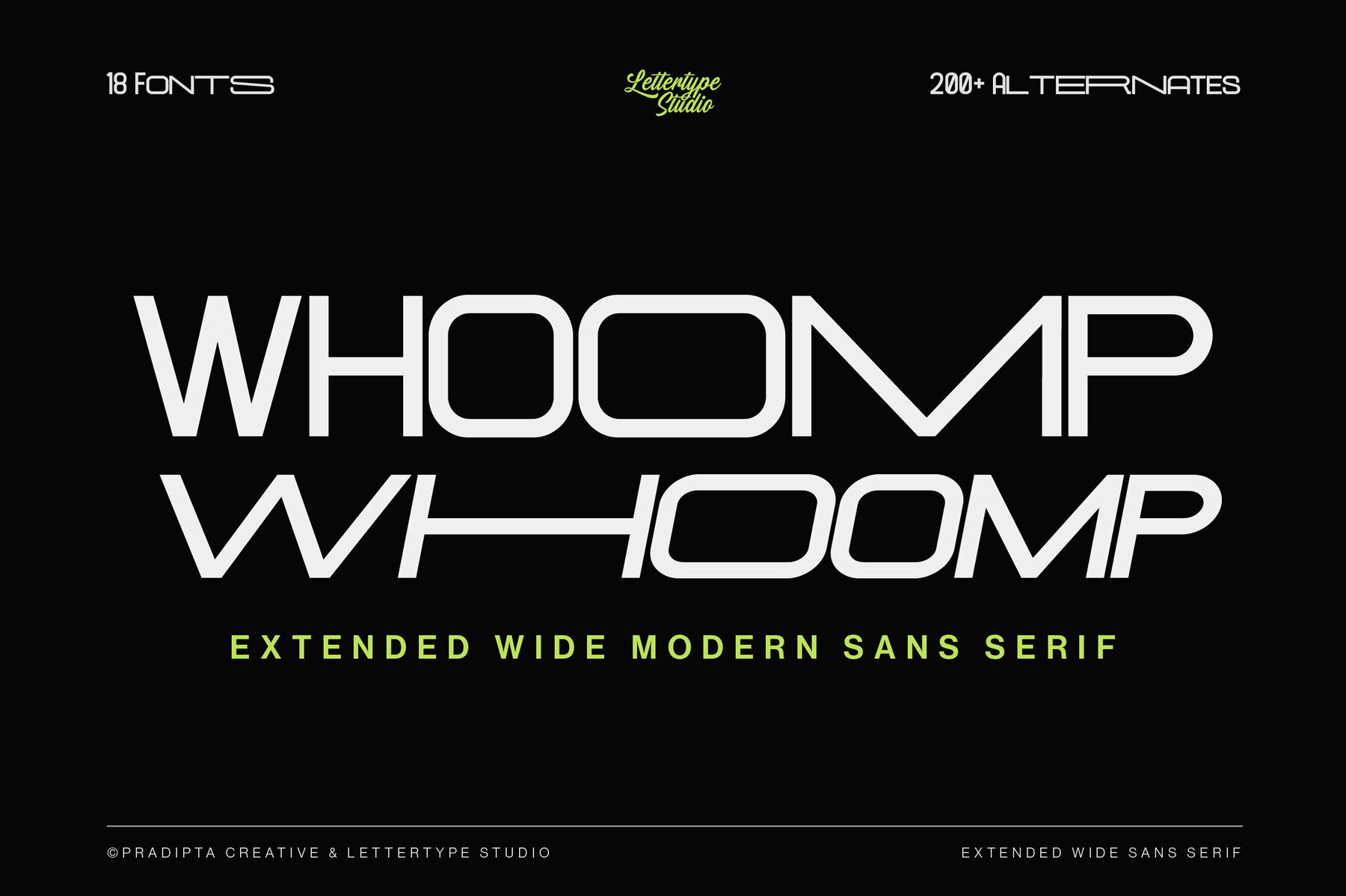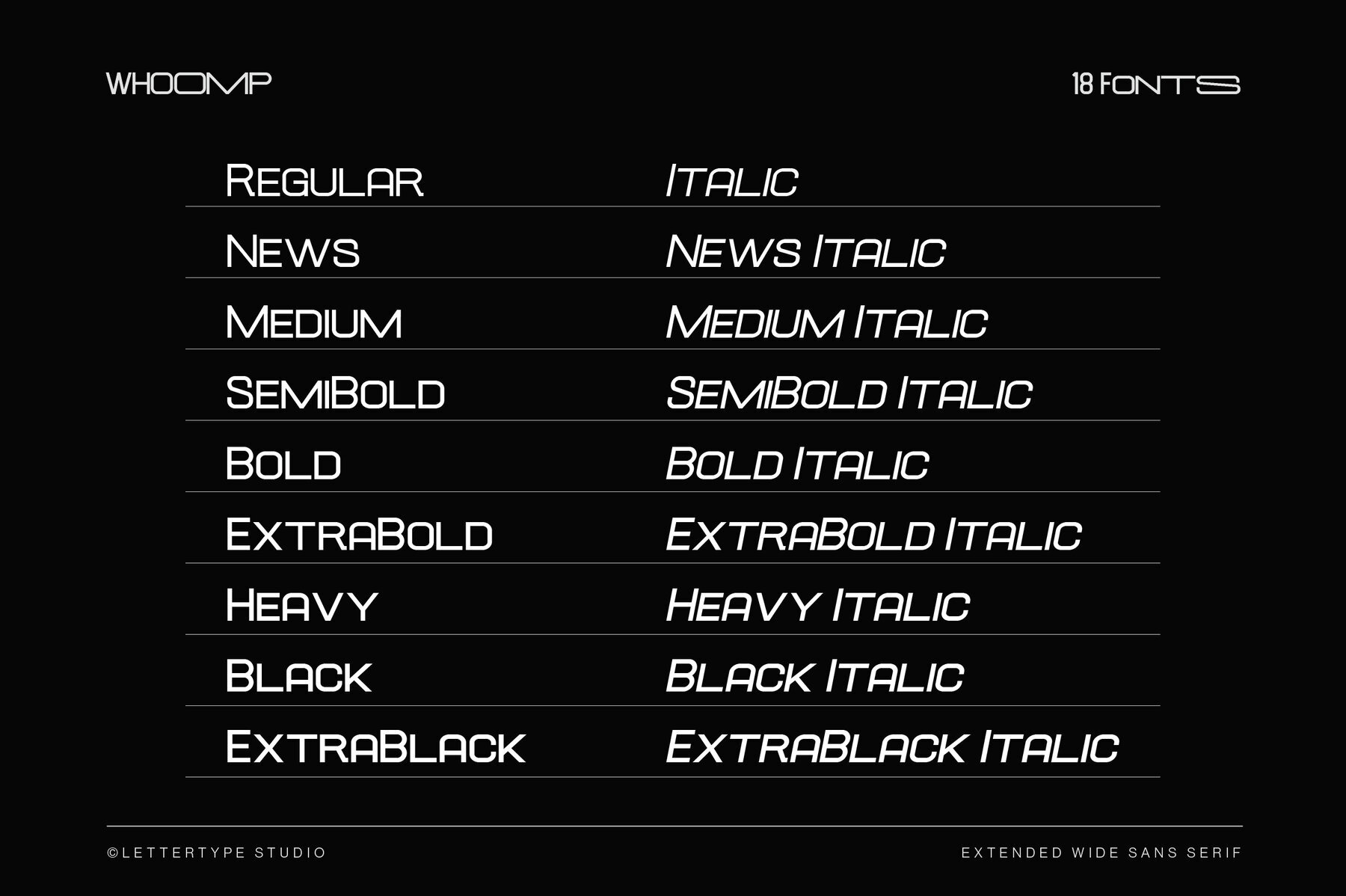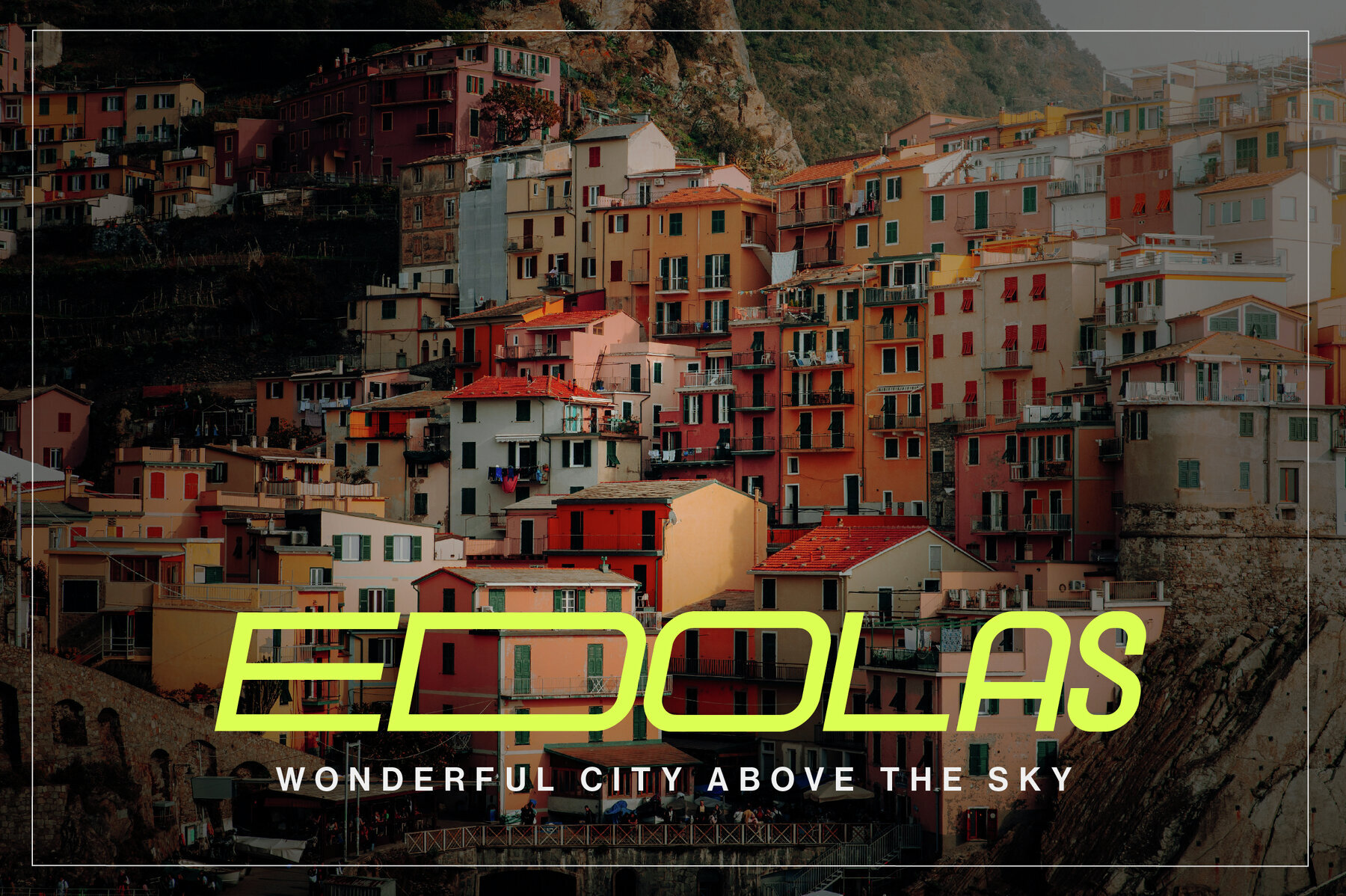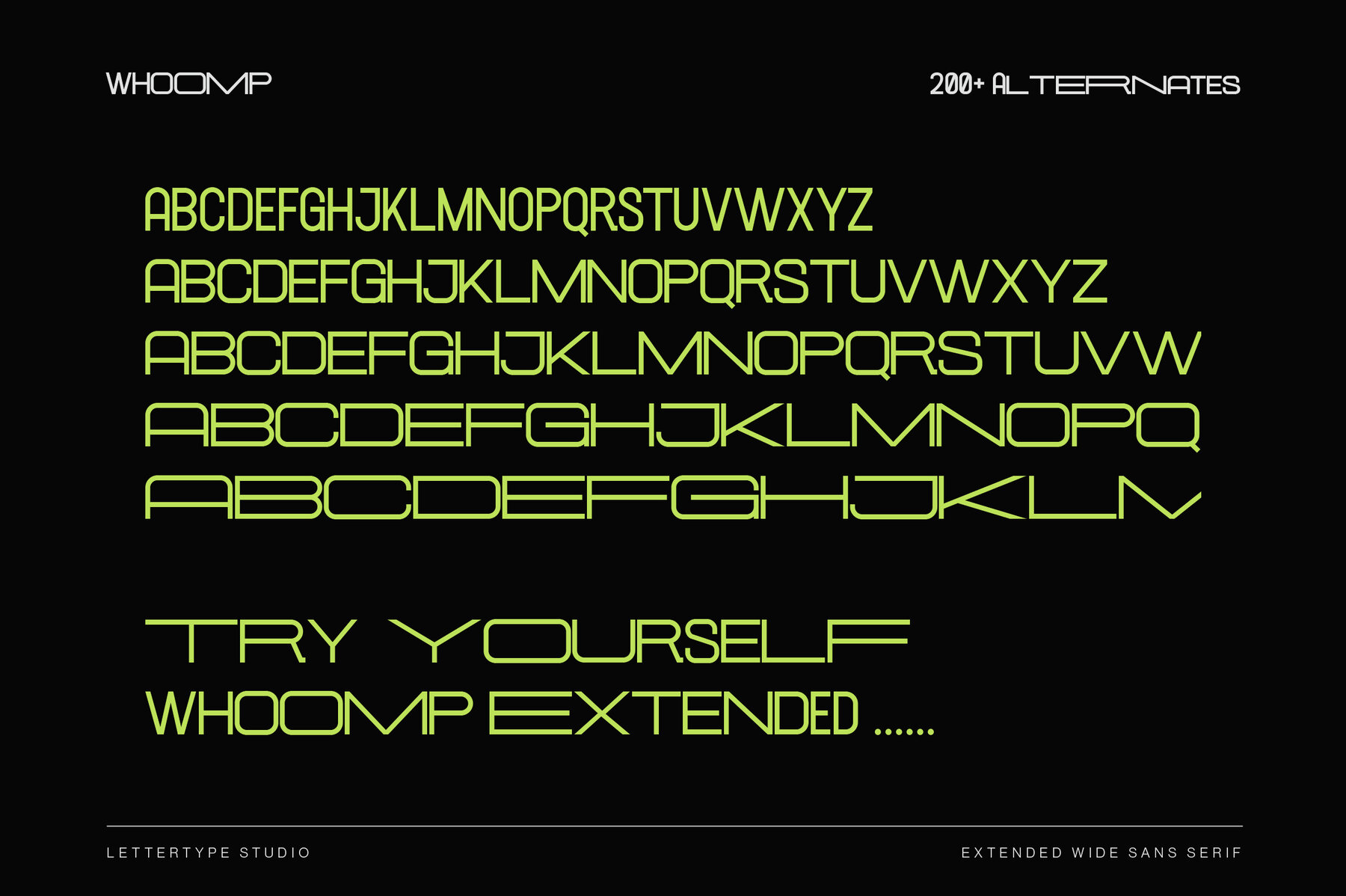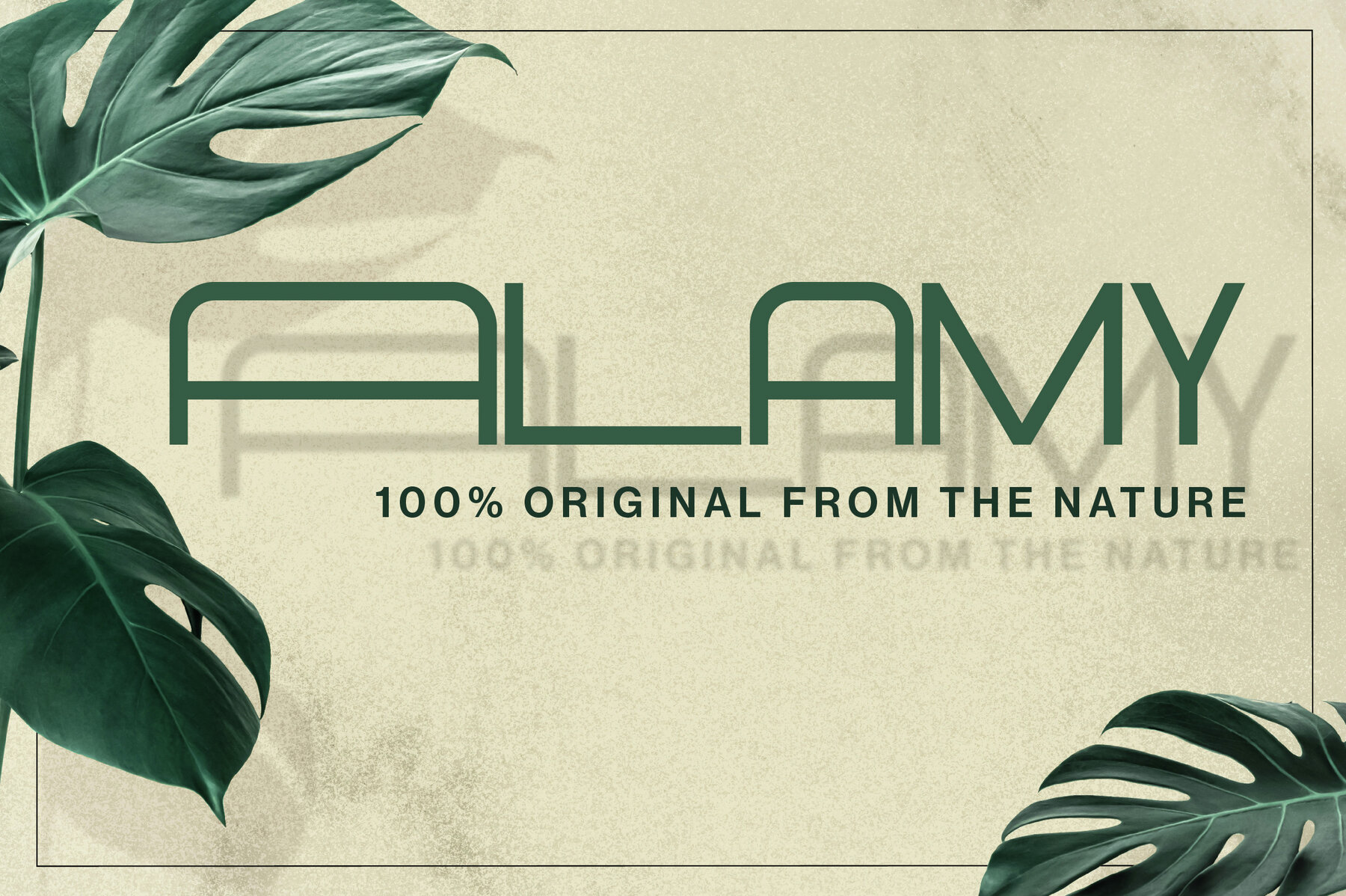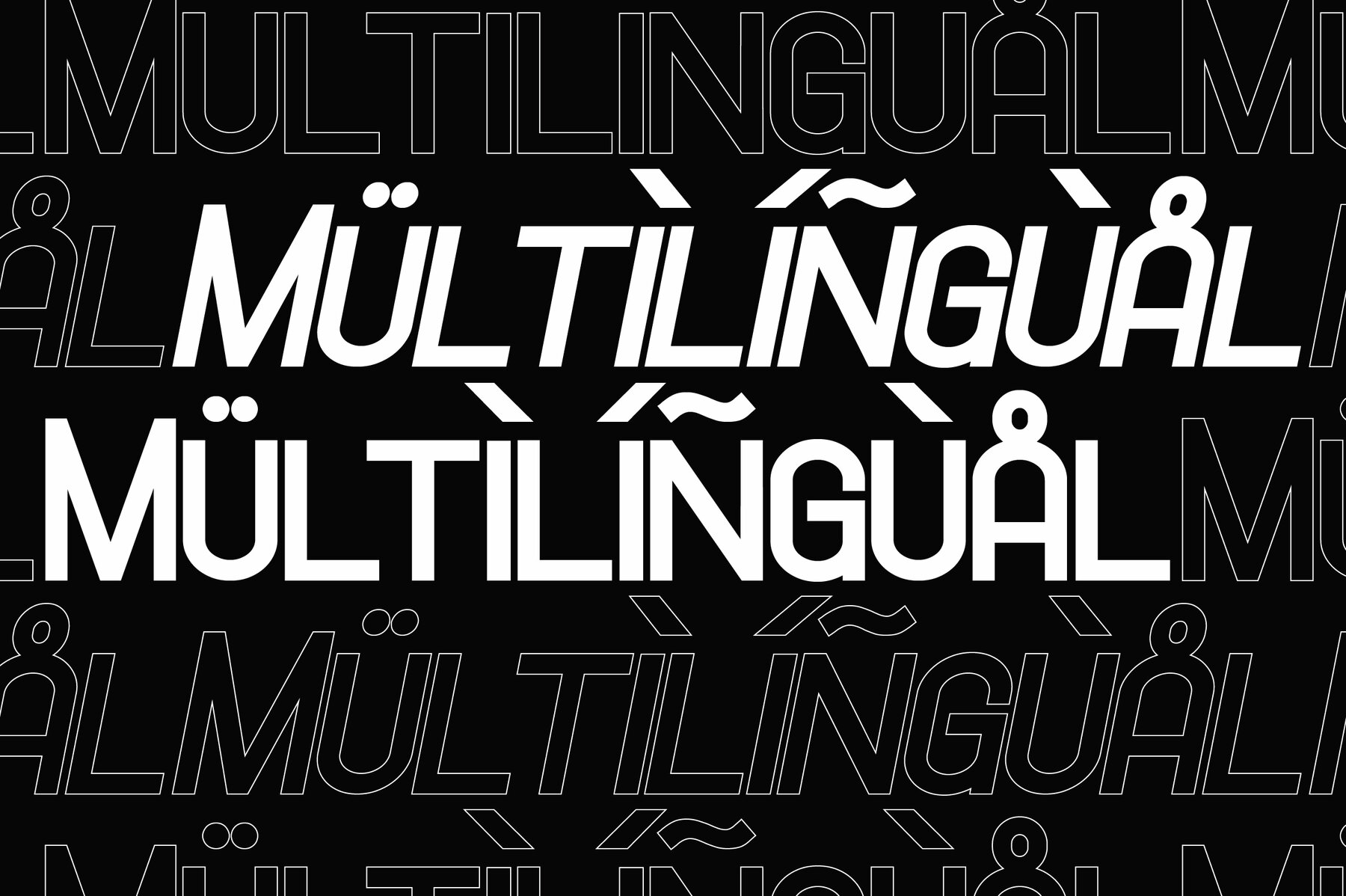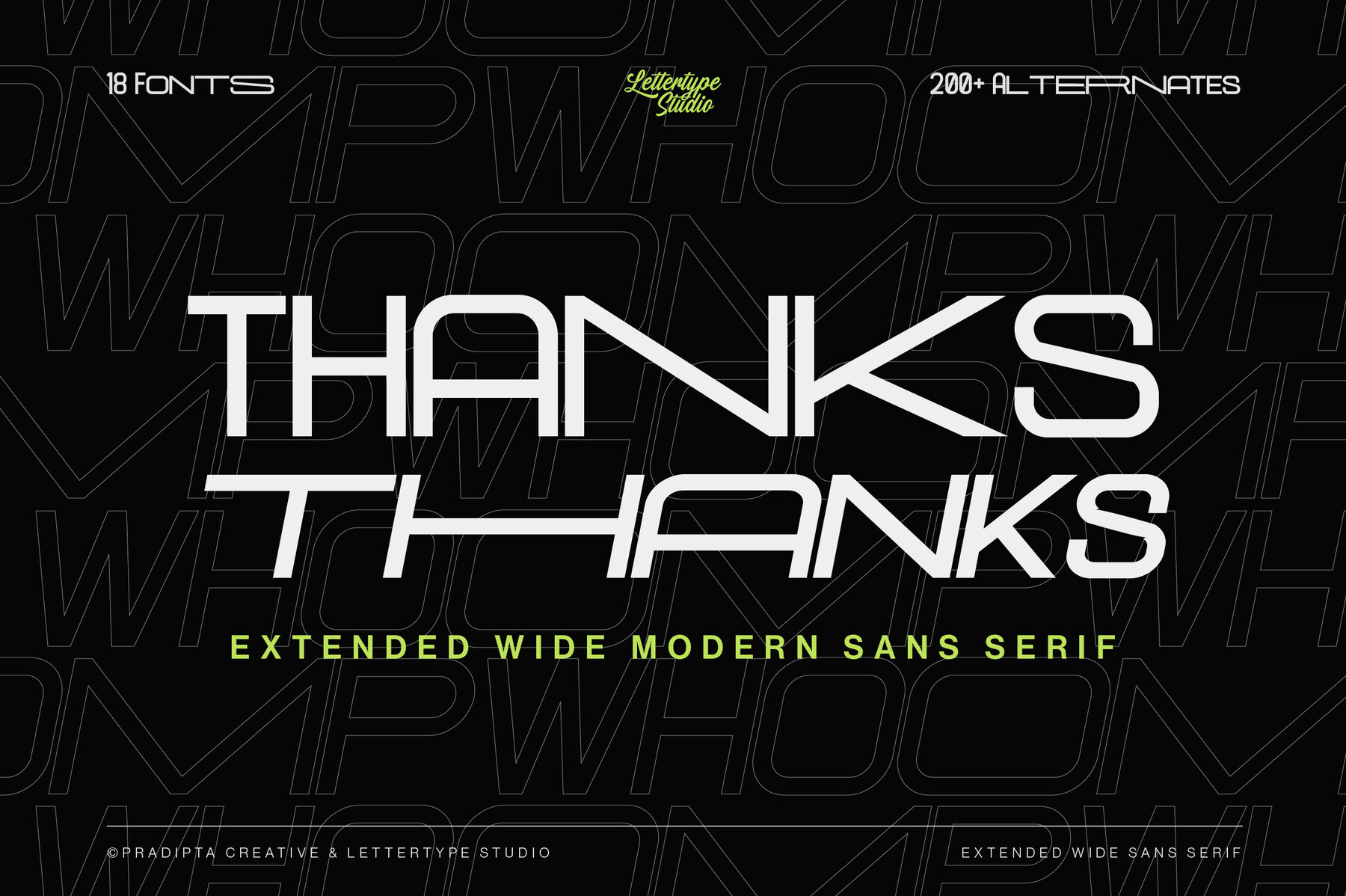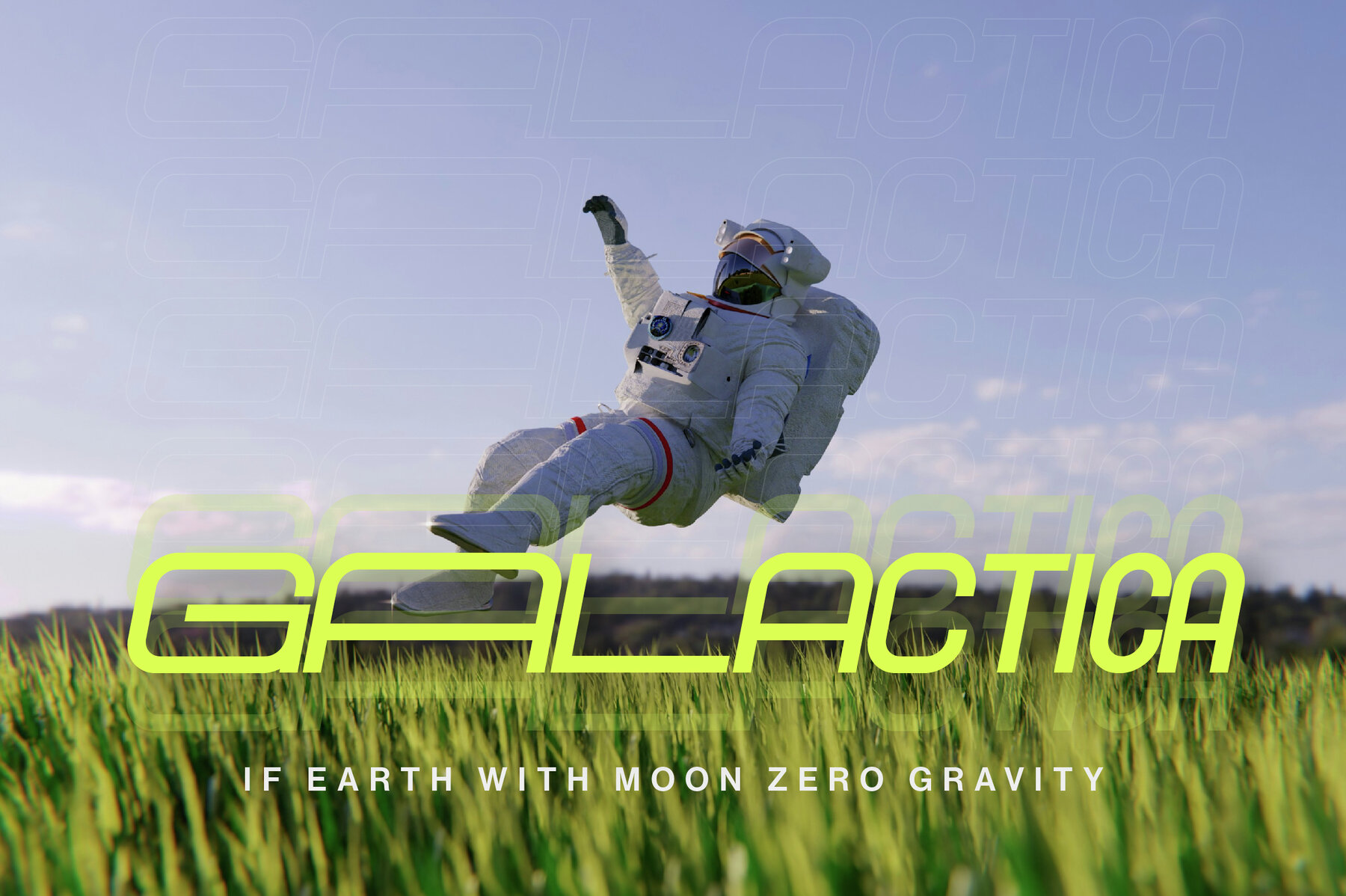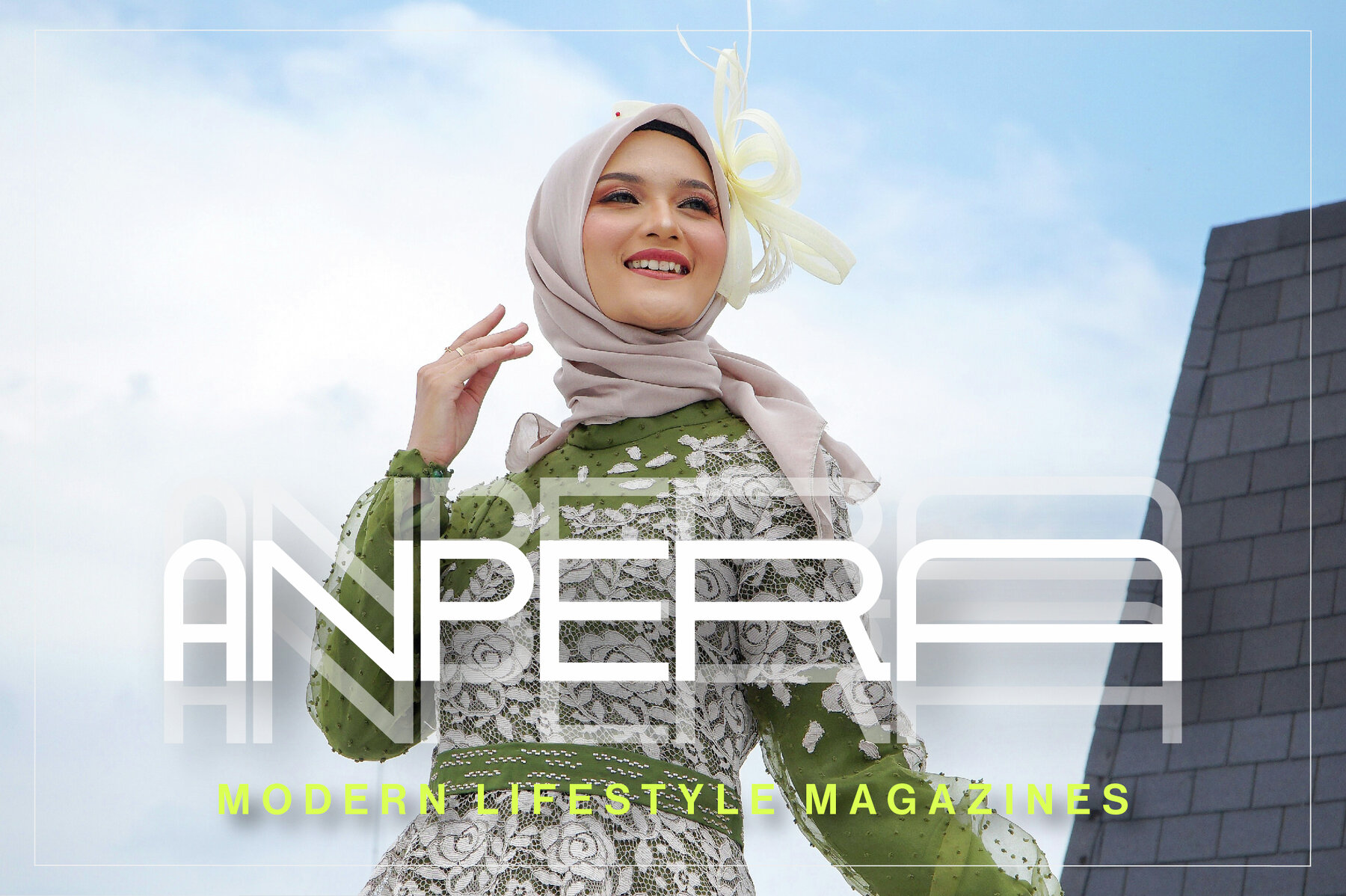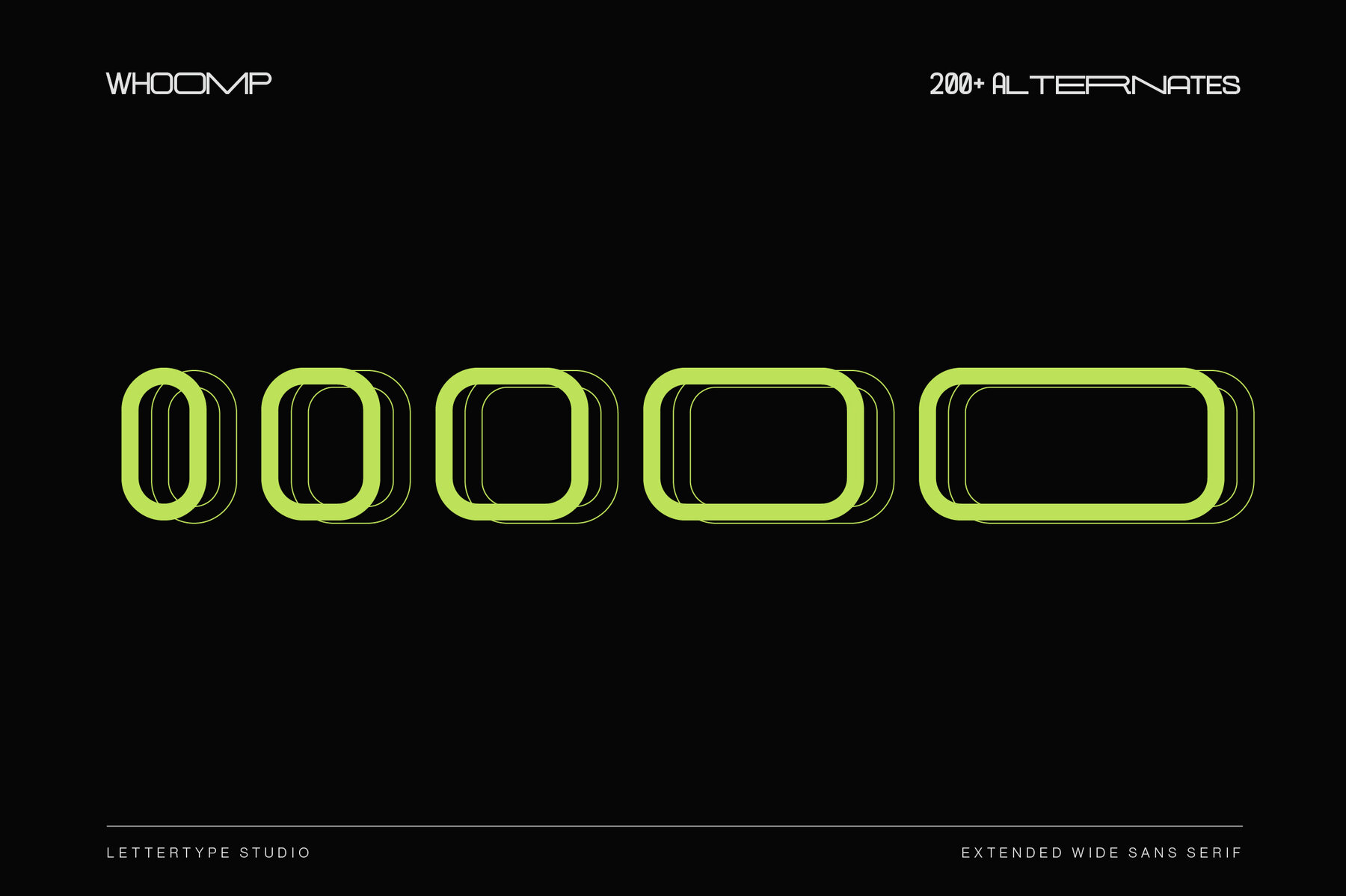
Whoomps Font
Dive into the dynamic world of Whoomp, an extended wide sans serif font inspired by vibrant urban culture. Its robust and distinctive characters offer a fresh perspective to your creative projects, with over 200 alternate glyphs providing limitless customization options. This font is ideal for a wide array of uses, including photography, social media content, branding, invitations, product designs, and so much more. Whether crafting logos, designing branding materials, or enhancing event posters, Whoomp's adaptability and modern flair make it a perfect choice for any designer looking to make a bold statement.Introducing Whoomp: A Versatile Modern Typeface